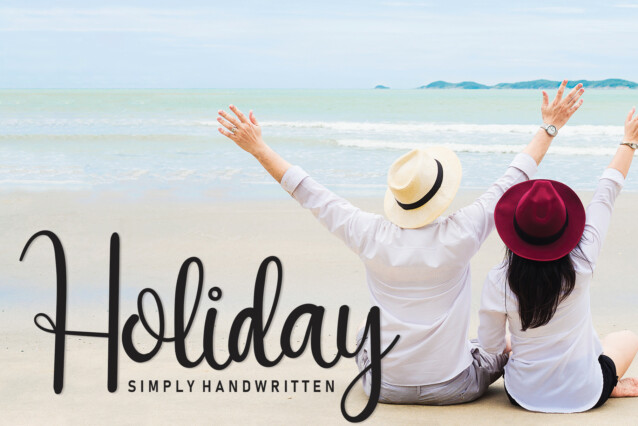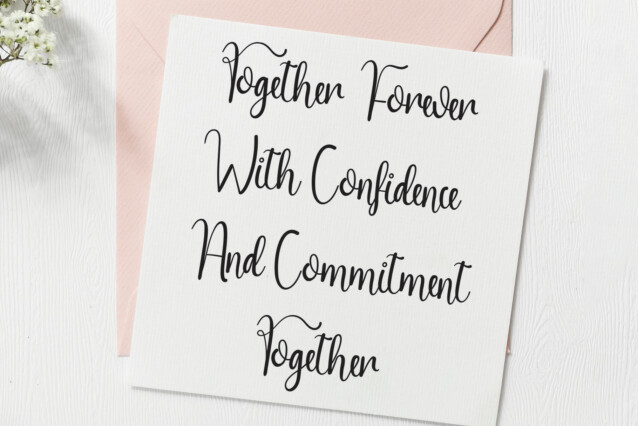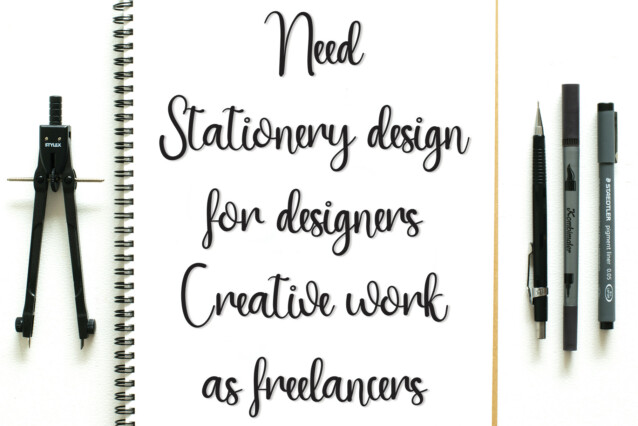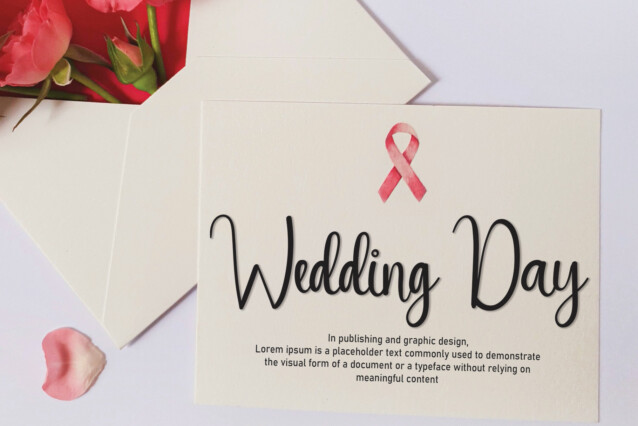
Online Store Script Font
Online Store Script Font is a romantic and sweet calligraphy typeface with characters that dance along the baseline. It has a casual, yet elegant touch.